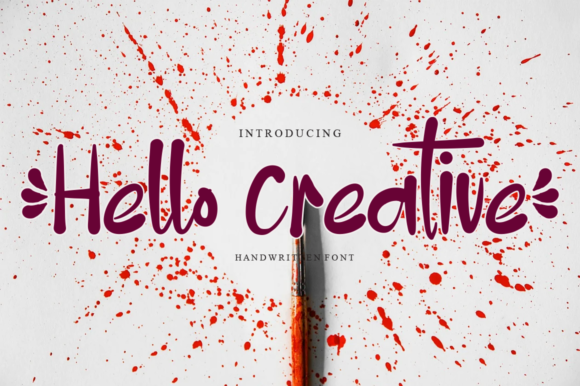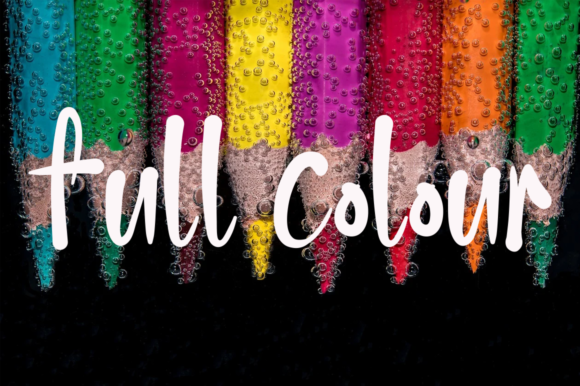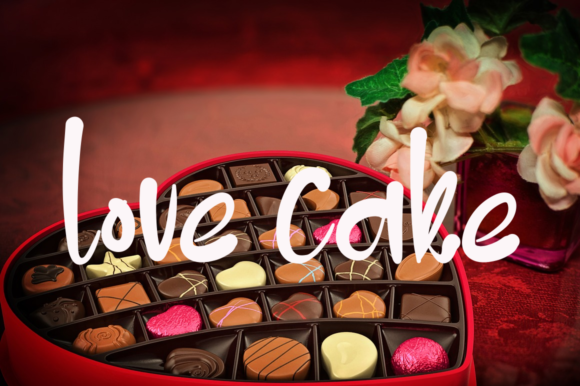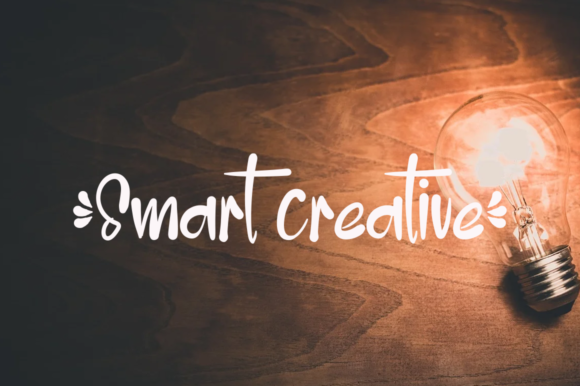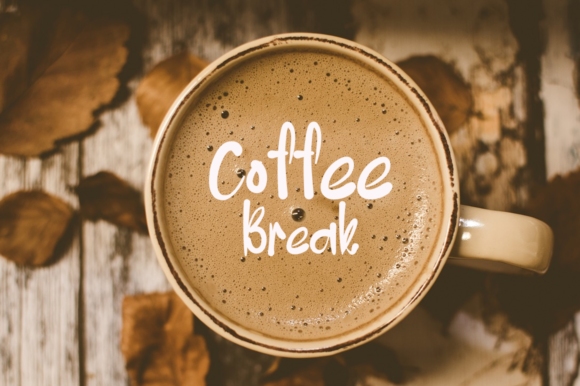
Hello Creative Font
About Hello Creative Font
Hello Creative is a handwritten font that can be used for all chalkboard quotes or teaching material! Its authentic handwritten look and feel will add a personal and realistic feel to your designs.